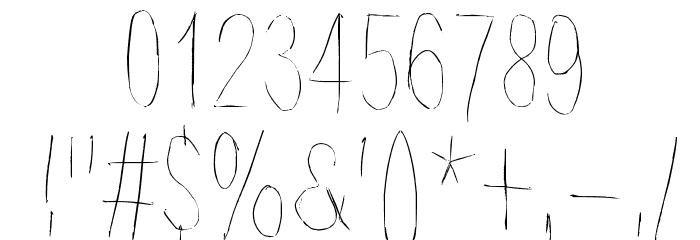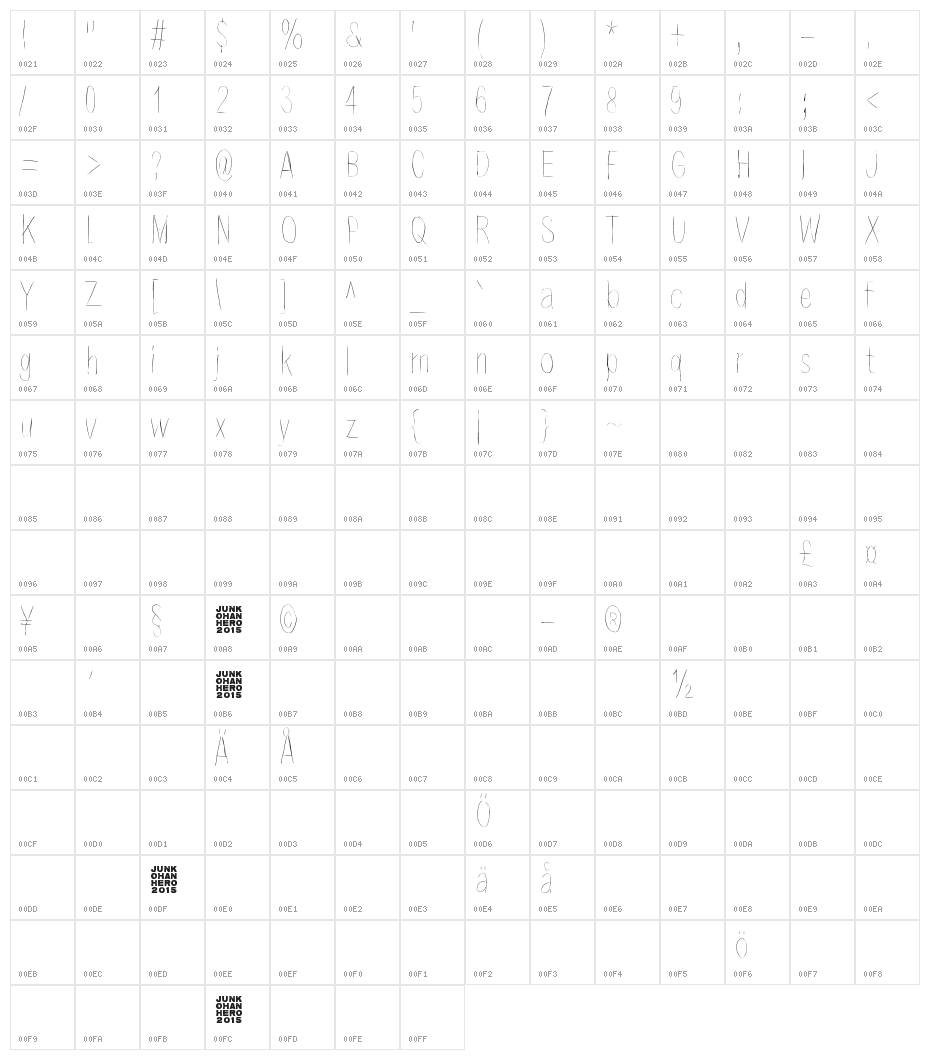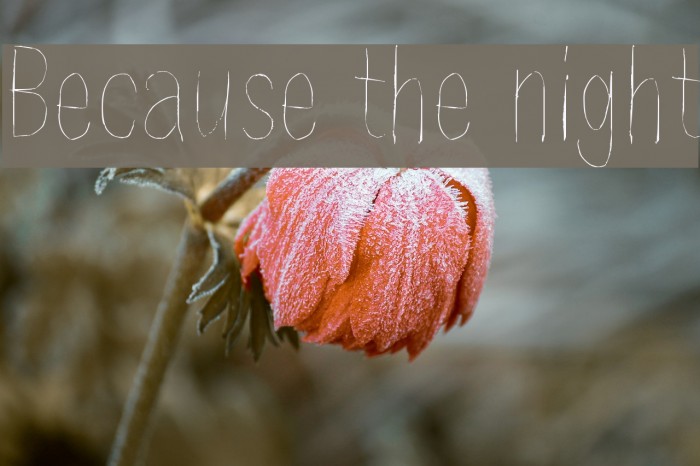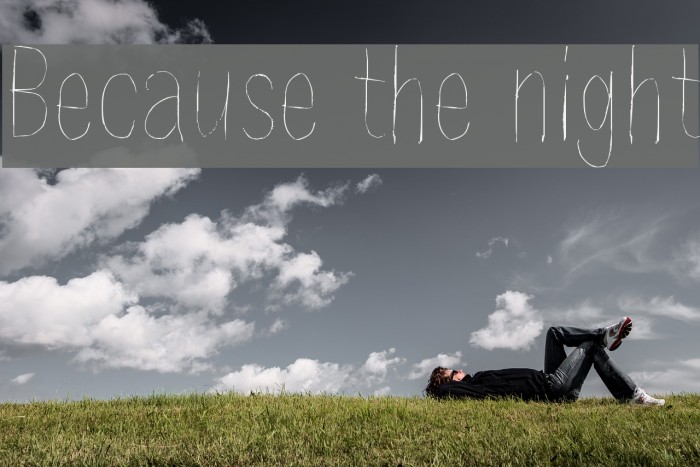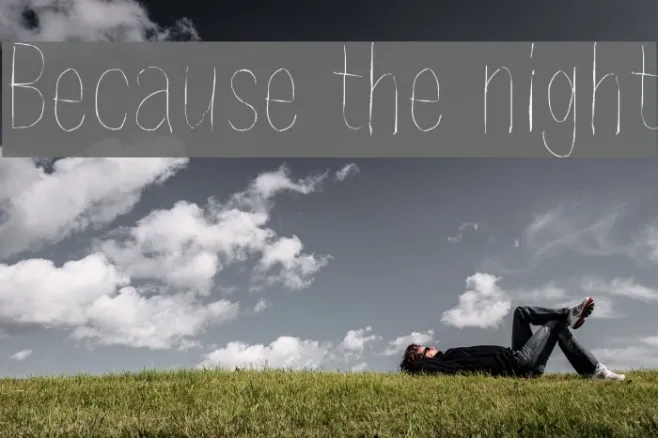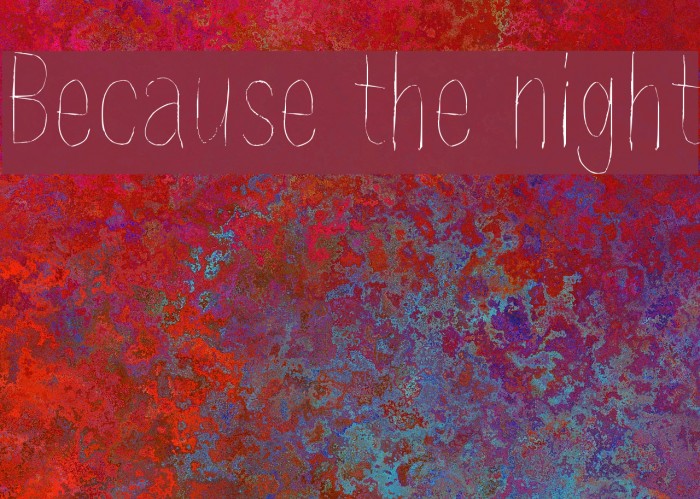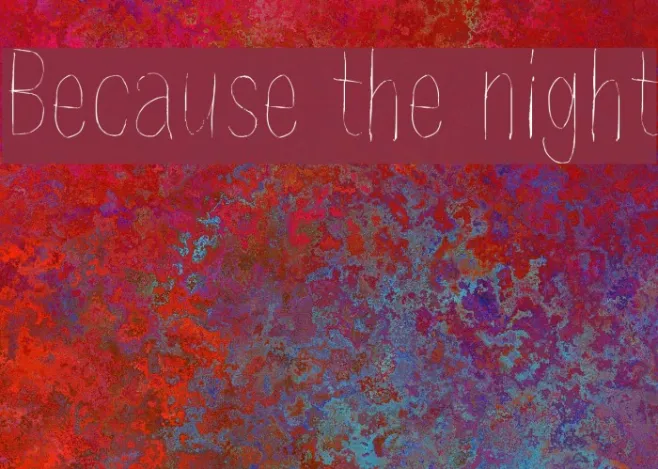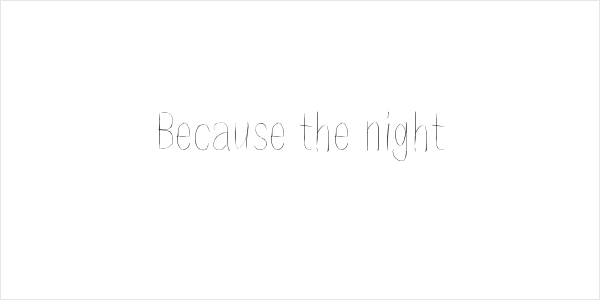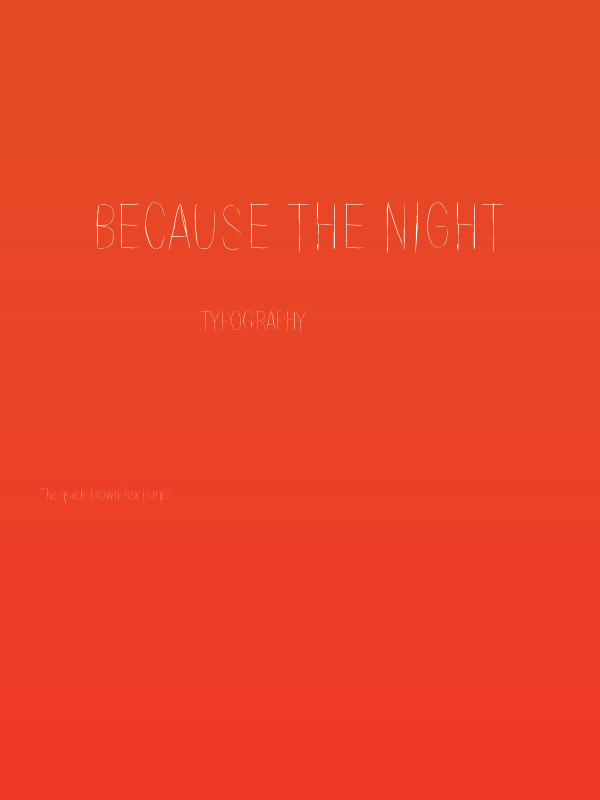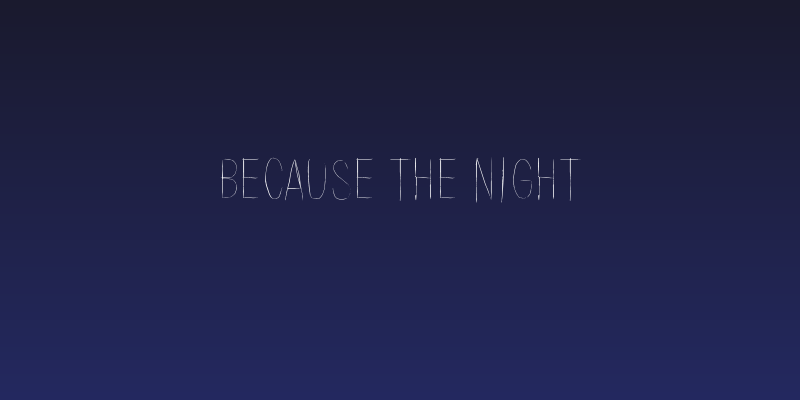
Because the night Font
Because the night Description
This font features a hand-drawn, sketch-like appearance with irregular and slightly rough edges, giving it a raw and organic feel. The characters are tall and slender, with a consistent height across both uppercase and lowercase letters. The strokes vary in thickness, adding a dynamic and lively quality to the text. The numerals and special characters maintain the same hand-crafted style, ensuring a cohesive look throughout. This font's unique and artistic design makes it stand out, suitable for creative and informal applications.
| Overall Style | Artistic |
| Use Case | Logos, Posters, Creative Branding |
| Proposed Projects | Ideal for artistic projects, informal invitations, creative branding, and unique poster designs. |